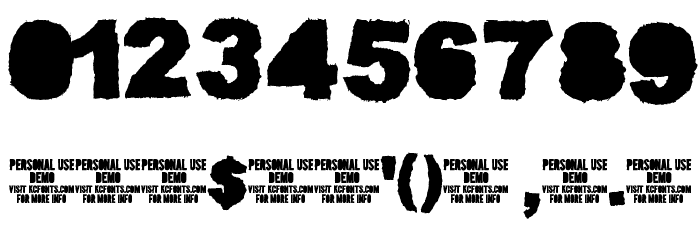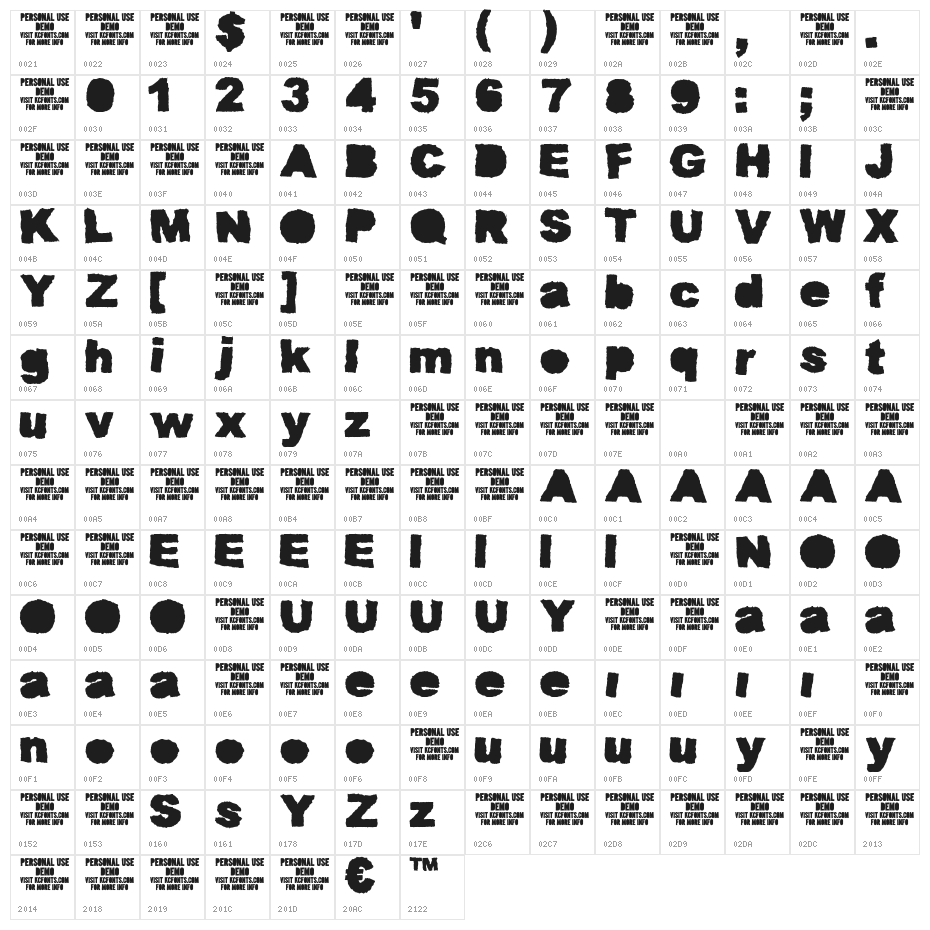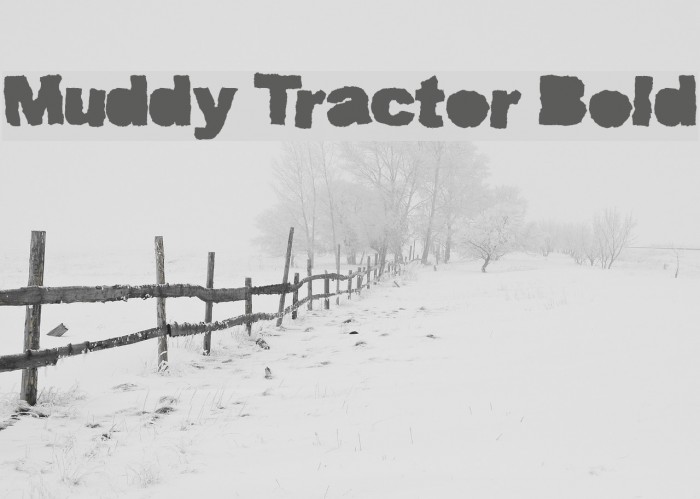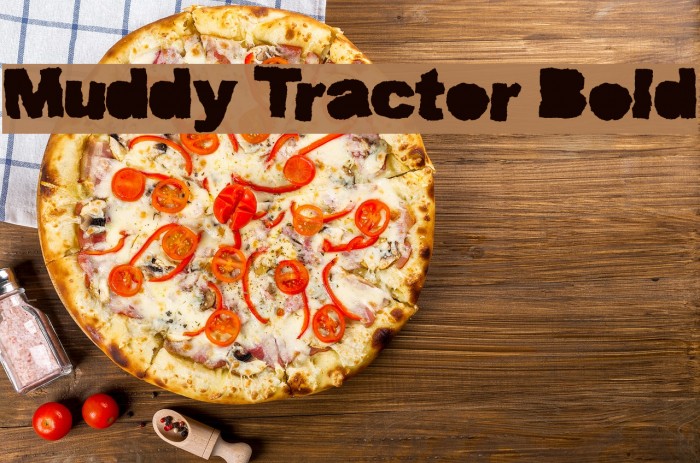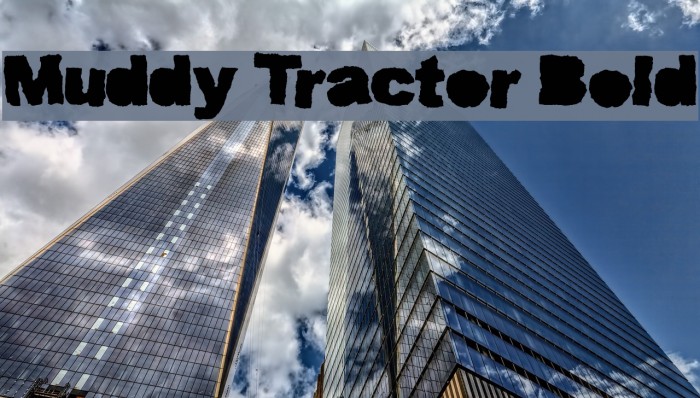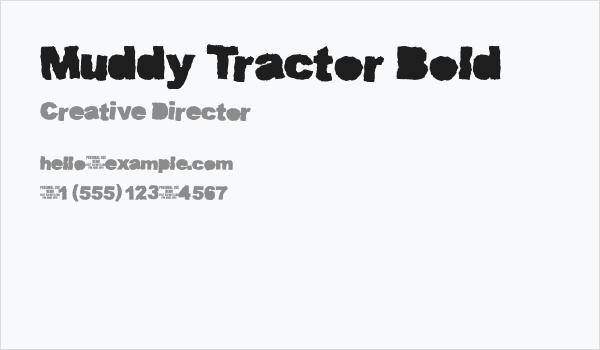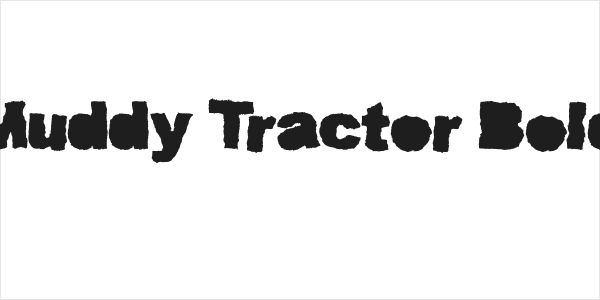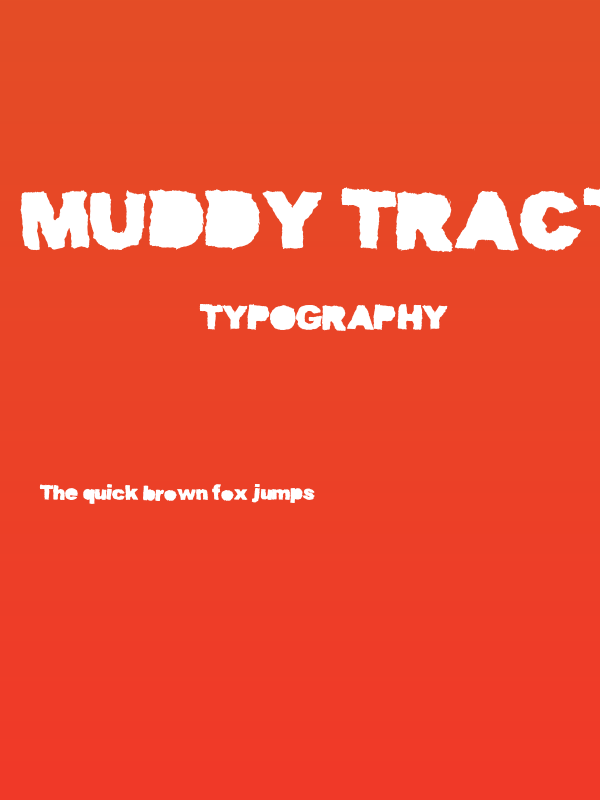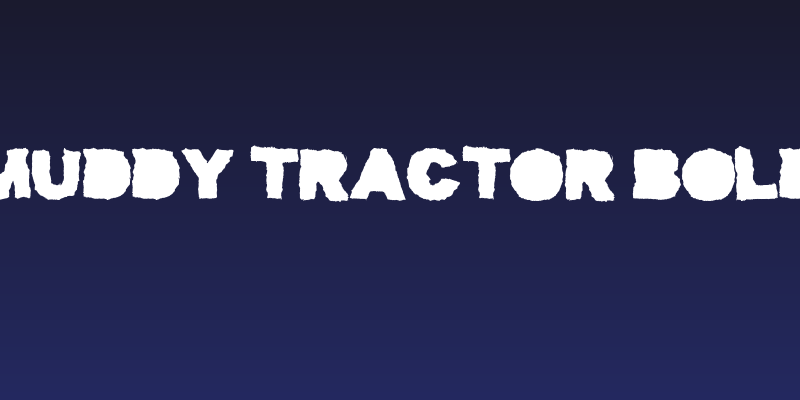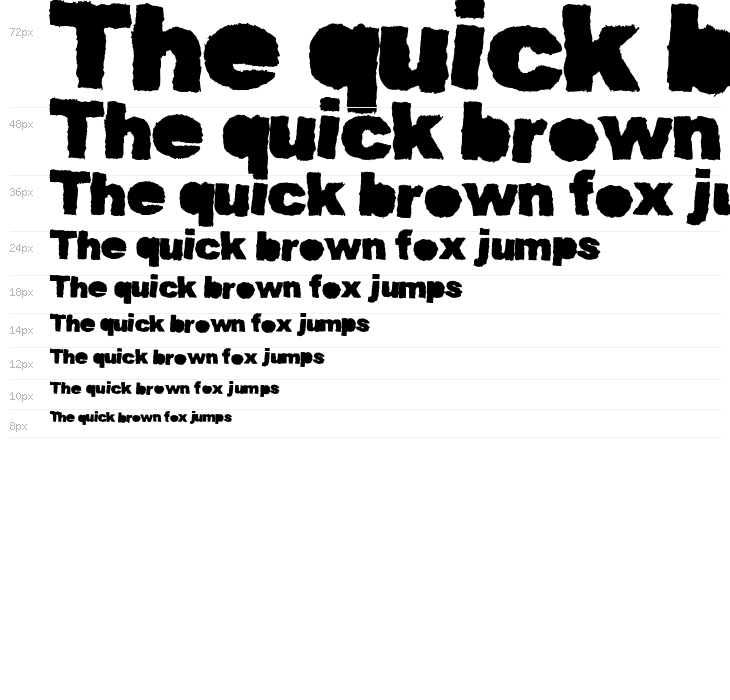
Muddy Tractor Bold Font
Muddy Tractor Bold Description
This font features a bold and rugged design, reminiscent of tire tracks or muddy imprints. The characters are heavily textured, giving a distressed and organic feel. The uppercase and lowercase letters maintain a consistent weight, with rounded edges and irregular contours that suggest movement and energy. The numbers and special characters follow the same style, ensuring uniformity across all glyphs. This font's unique appearance makes it stand out, ideal for projects requiring a strong visual impact.
| Proposed Projects | Ideal for posters, branding for outdoor or adventure products, event flyers, or any design needing a bold, impactful look. |